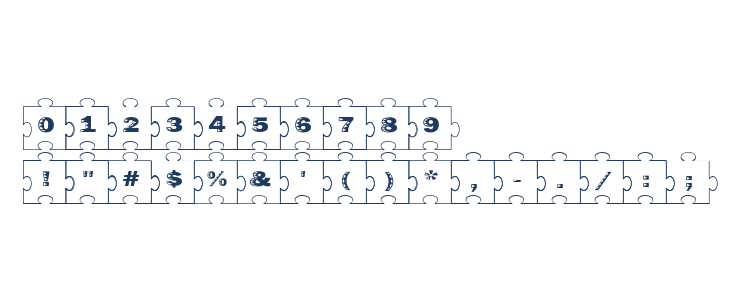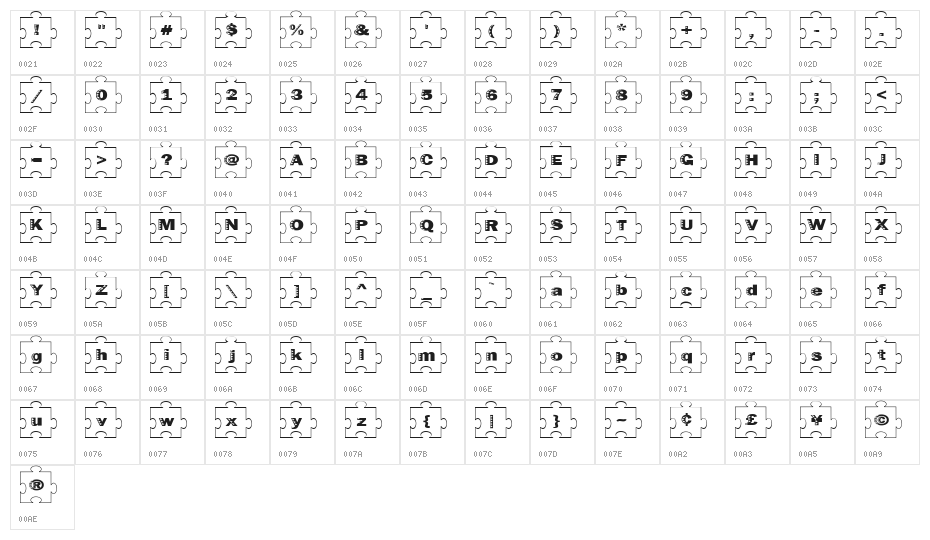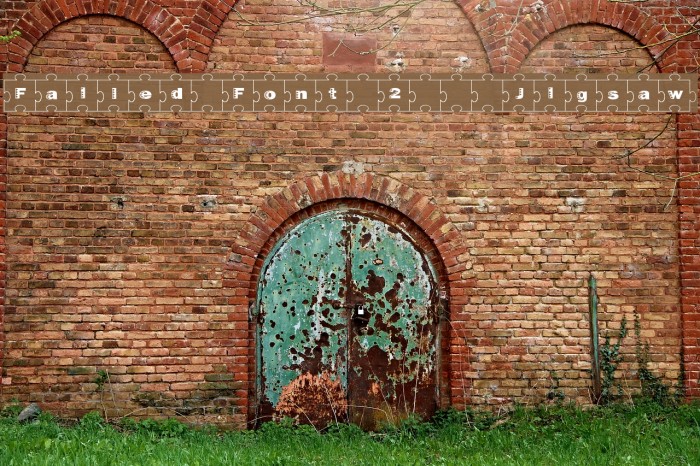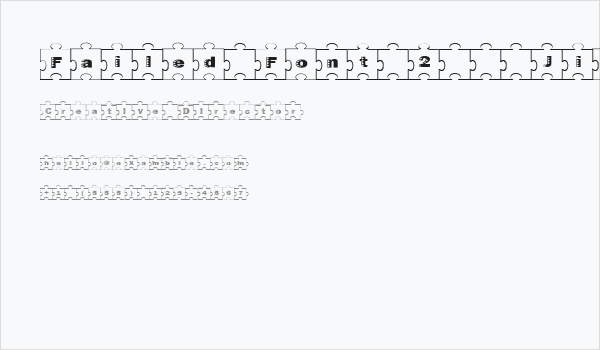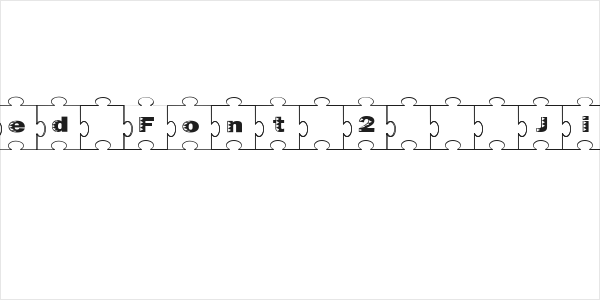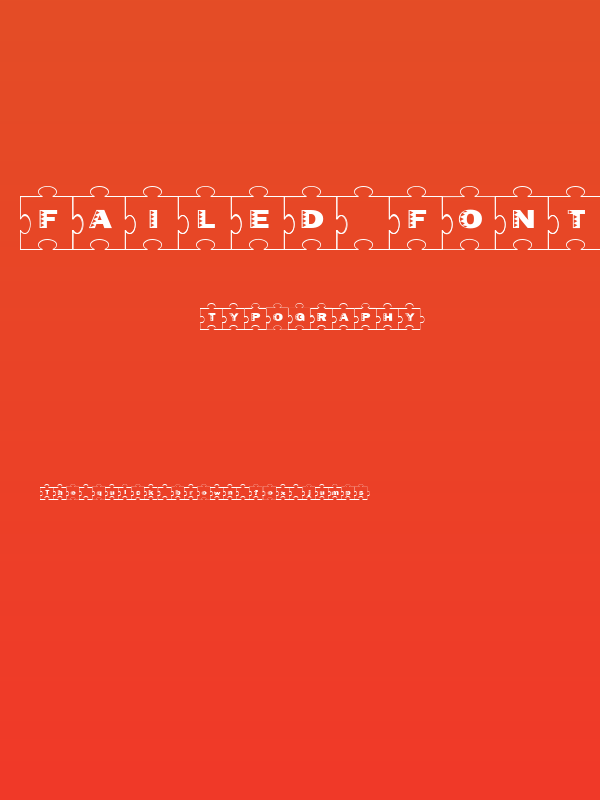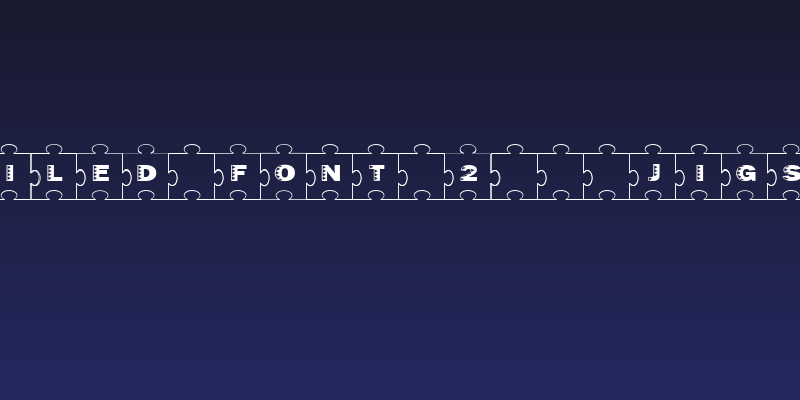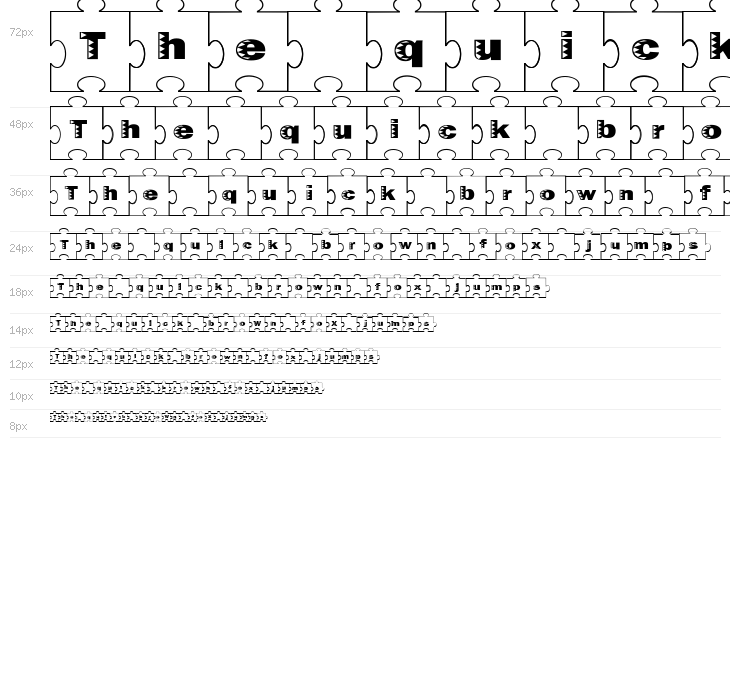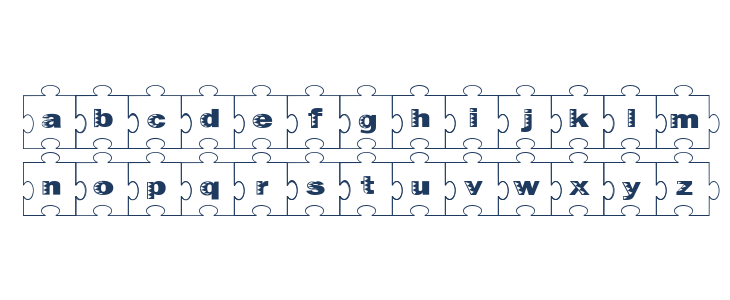
Failed Font 2 Jigsaw Font
Failed Font 2 Jigsaw Description
This font features a playful and unique design, with each character enclosed within a jigsaw puzzle piece outline. The letters and numbers are bold and clear, making them easily readable despite the decorative puzzle element. The uppercase and lowercase letters maintain a consistent style, with rounded edges and a slightly condensed form. The special characters are also included within the puzzle pieces, adding to the cohesive look. This font's distinctive style makes it ideal for creative projects that require a fun and engaging visual element.
| Proposed Projects | Ideal for children's books, educational materials, playful branding, and creative posters. |